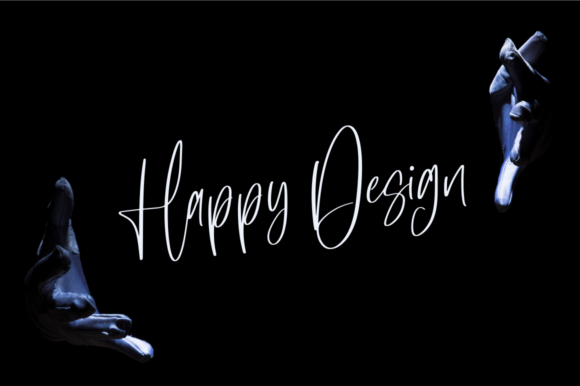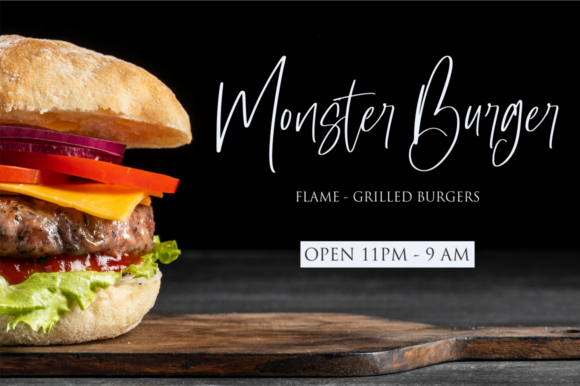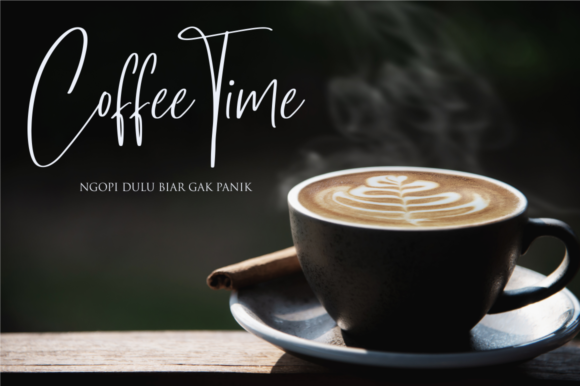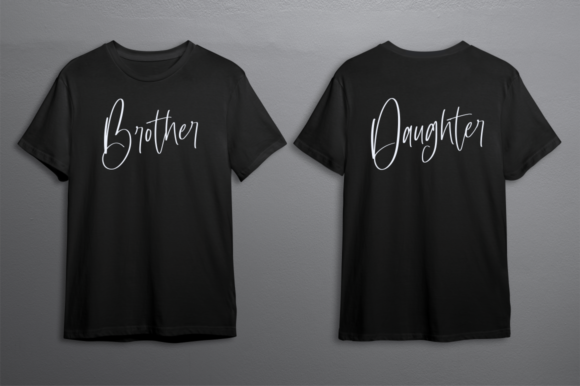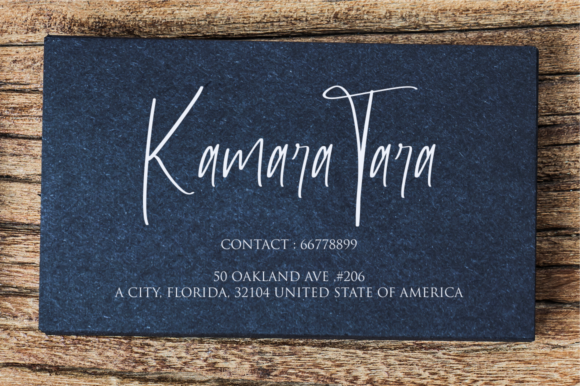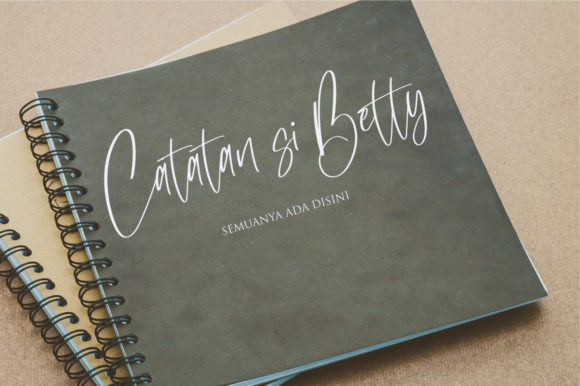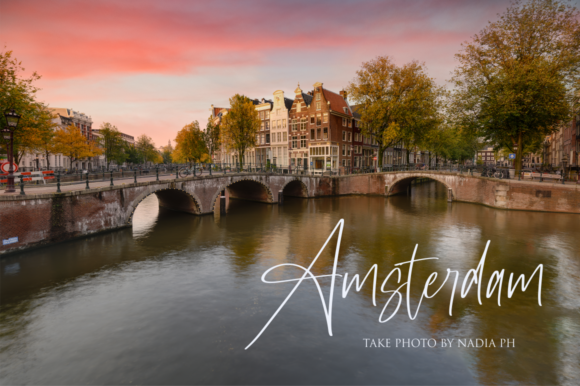
Master of Magic Font
About Master of Magic Font
Master of Magic is a laid-back and thin lettered script font. It will elevate a wide range of crafting ideas, from cards, to branding, labels and much more.